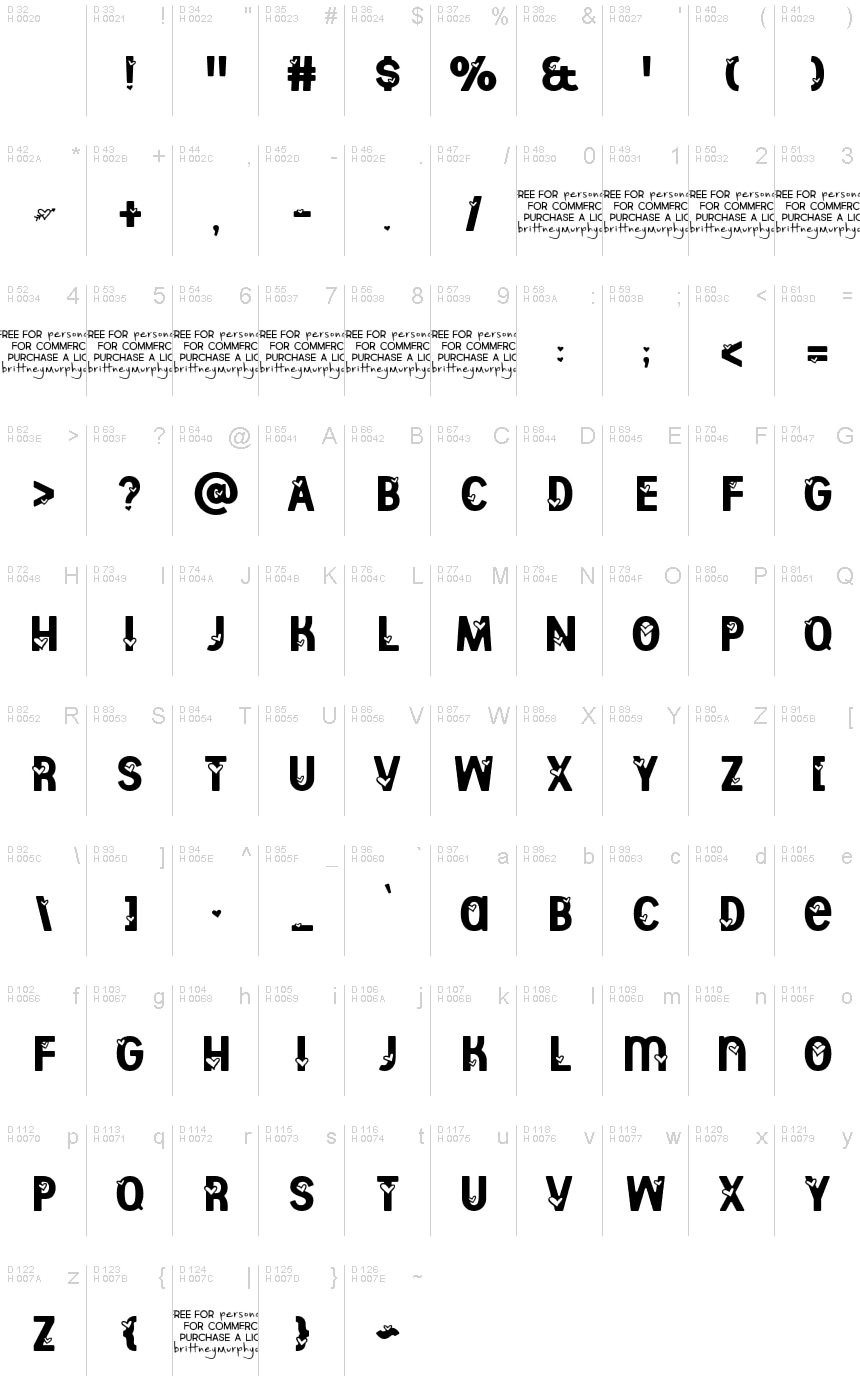
*Heart^Freaking^Tastic* font is a Valentine typeface designed by Brittney Murphy Design.
Use the asterisk * character for a heart with an arrow through it.
Use the circumflex ^ character for a small solid heart.
For example Heart^Freaking^Tastic